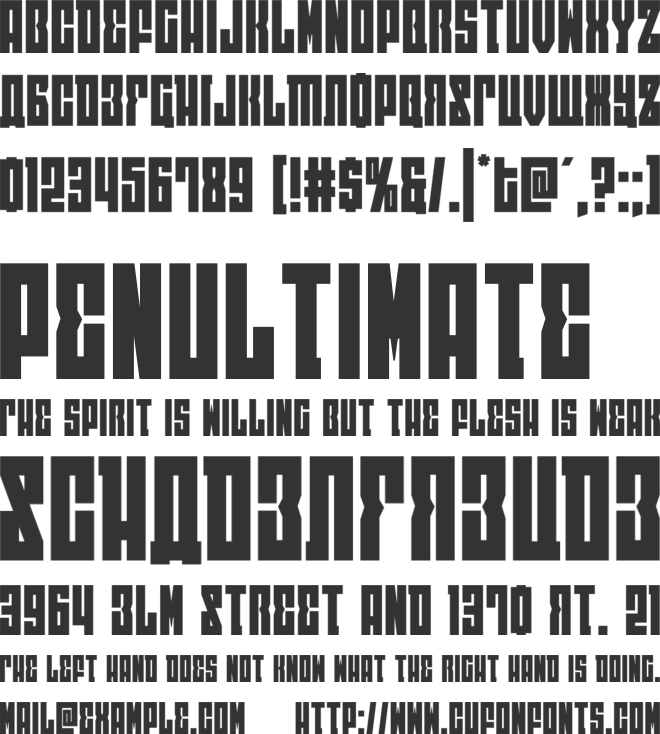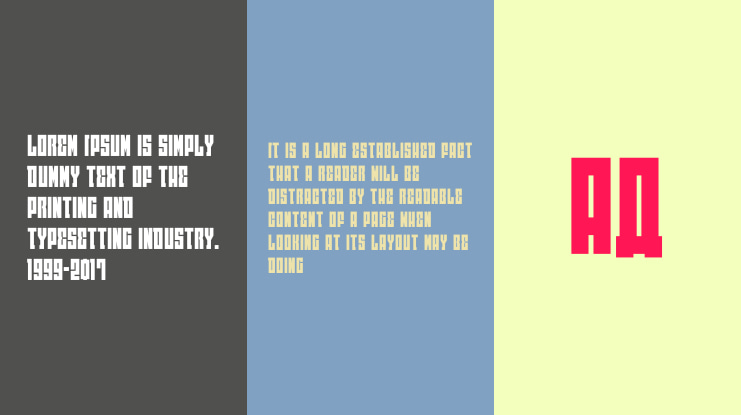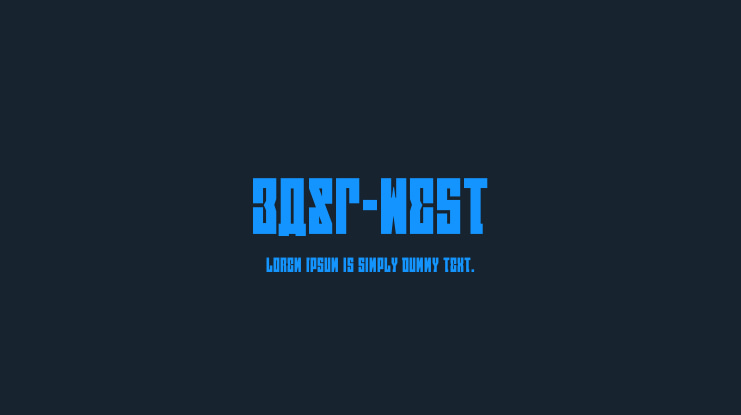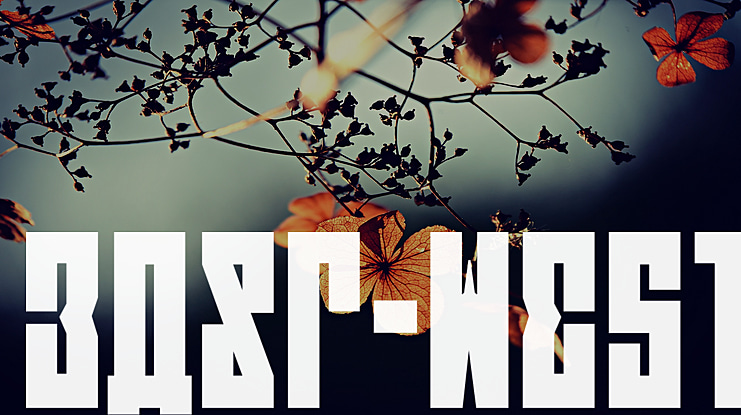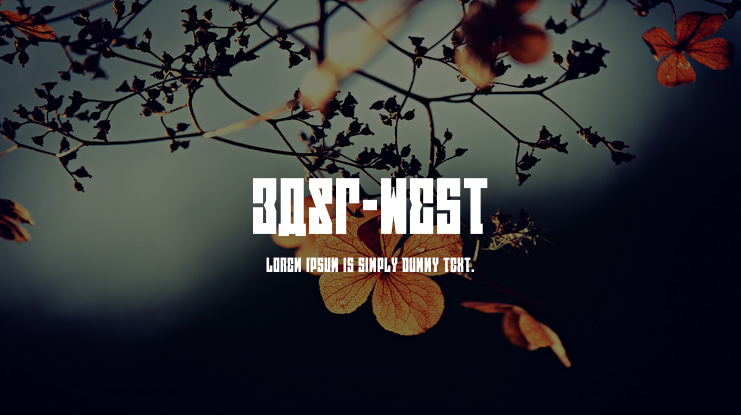
EAST-west Font Family
Daniel Zadorozny
Upper case letters are Cyrillic inspired while the lower case letters are Latin inspired. For information on commercial use, please visit www.iconian.com/commercial.html